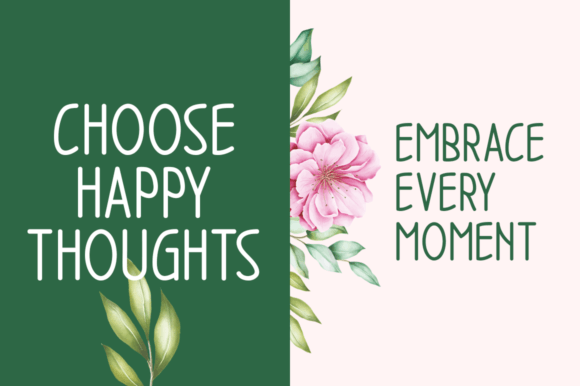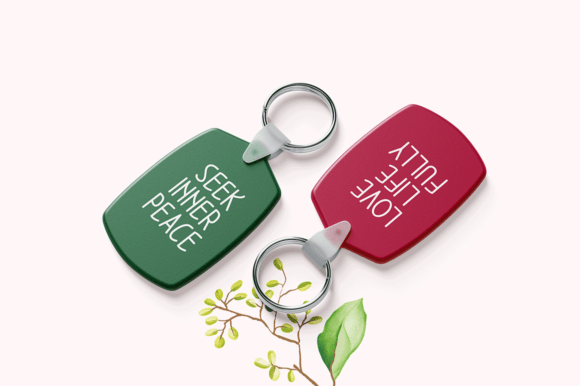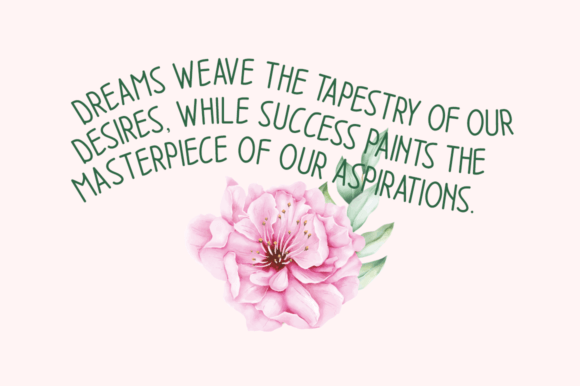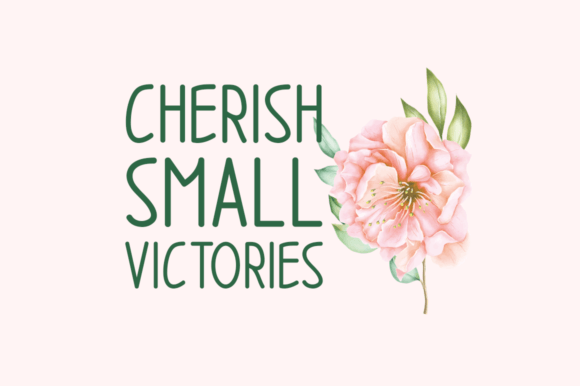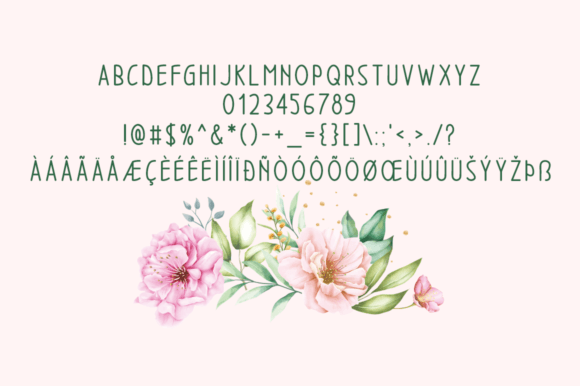
Unleash Your Creativity with Bikiron Font
Have you ever stared at a blank canvas, feeling the pressure to create something amazing? That’s where I’m at right now, and I’m sure many of you designers out there can relate. The blank page can be intimidating, but what if I told you that there’s a secret to unlocking your creativity and taking your designs to the next level?
Enter the Bikiron Font, a brand-new modern display font that’s perfect for bringing your ideas to life. Whether you’re working on a logo, a t-shirt design, or a website header, Bikiron Font is the perfect companion to help you achieve your creative vision. With its versatility and stylish look, Bikiron Font is a valuable addition to any designer’s toolkit, and we can’t wait to see what you create with it.
Bikiron Font Key Features
- Font Family: Bikiron, a modern and elegant sans-serif font designed for various applications.
- Font Size: The font comes in multiple weights, ranging from 100 to 900, allowing for a wide range of typographic expressions.
- Resolution: Bikiron Font is designed to be scalable, making it suitable for use at various resolutions, including screen and print.
- Unique Characteristics: The font features a unique blend of geometric and organic elements, resulting in a distinctive and recognizable aesthetic.
- Language Support: Bikiron Font supports a wide range of languages, including Latin, Cyrillic, and Greek scripts.
Bikiron Font Review
Overall, I think the Bikiron Font is an interesting addition to the world of typography. ✨ One of its standout features is its unique blend of modern and vintage elements. The font has a distinct flair that can add a touch of sophistication to any design.
- ✨ The Bikiron Font is highly customizable, with a wide range of weights and styles to choose from. This makes it an excellent option for designers who want to create a specific mood or atmosphere in their work.
- ✨ The font is also highly legible, even at smaller sizes. This makes it a great choice for body text or headlines where readability is crucial.
However, there are some limitations to consider. ⚠️ The Bikiron Font may not be the best choice for projects that require a clean, minimalist aesthetic. The font’s ornate details can sometimes feel overwhelming or distracting.
- ⚠️ The Bikiron Font may be difficult to pair with other fonts, as its unique style can be quite dominant.
- ⚠️ The font’s bold weights can sometimes feel a bit too bold, overpowering the surrounding text.
Overall, I would recommend the Bikiron Font for designers who want to add a touch of elegance and sophistication to their work. However, it’s not the best choice for every project, and designers should carefully consider its limitations before using it.
Common Use Cases for Bikiron Font
Bikiron Font is a versatile font that can be used in a variety of contexts, including: